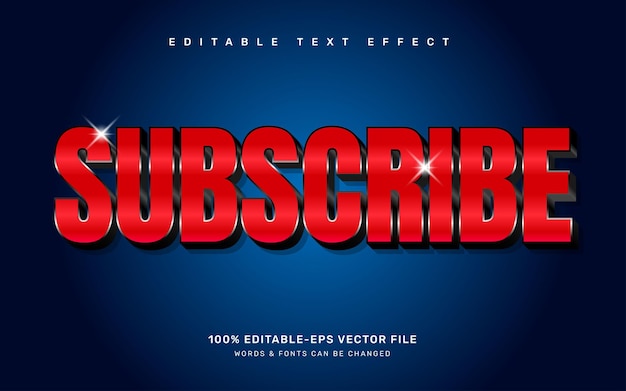
subscribe 3d text effect with modern theme. stylish text lettering typography font style
Subscribe 3d text effect with modern theme. stylish text lettering typography font style